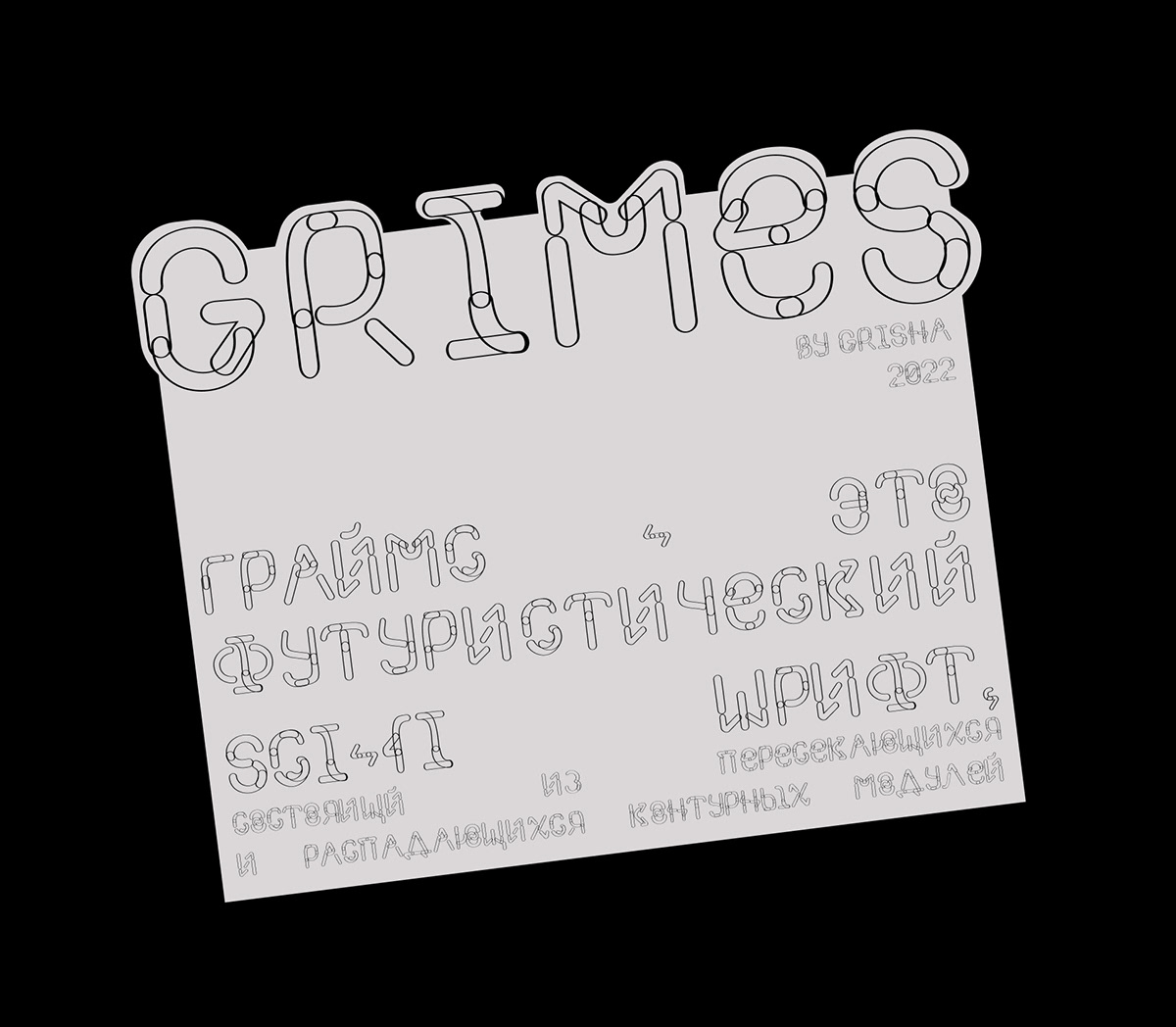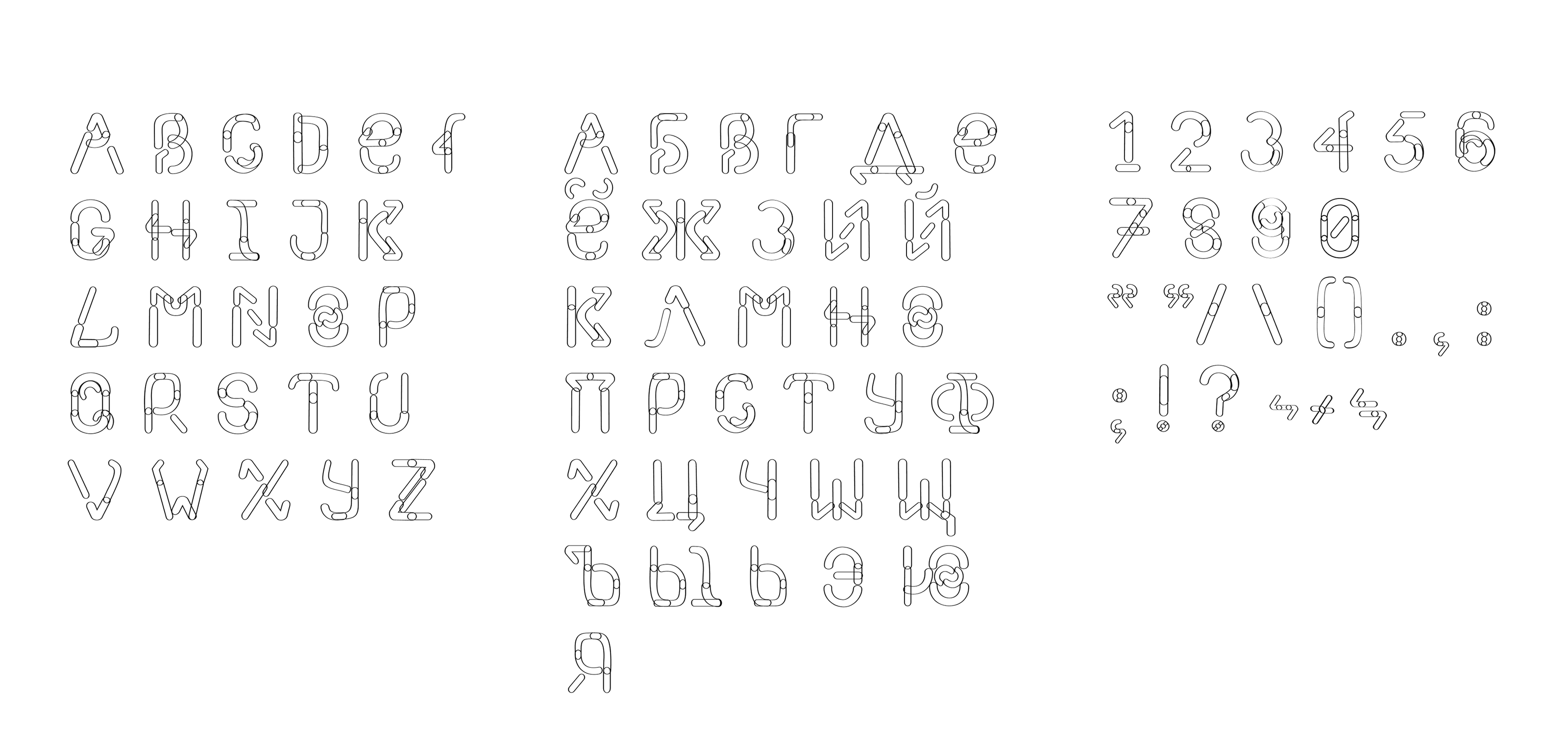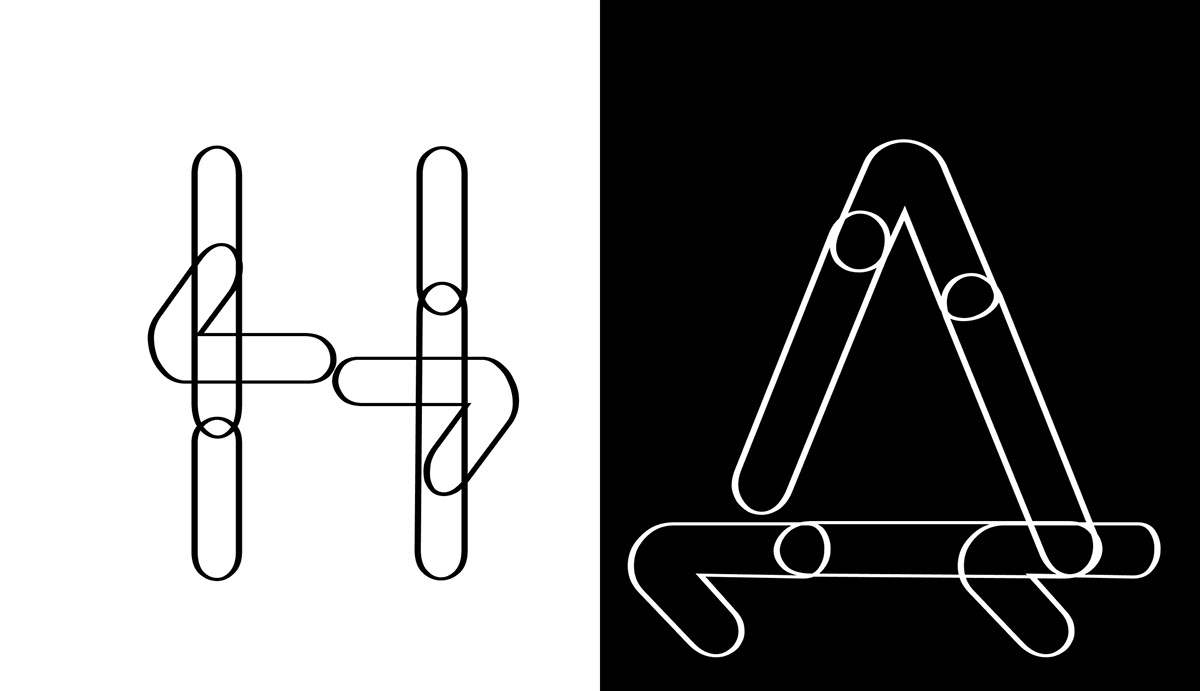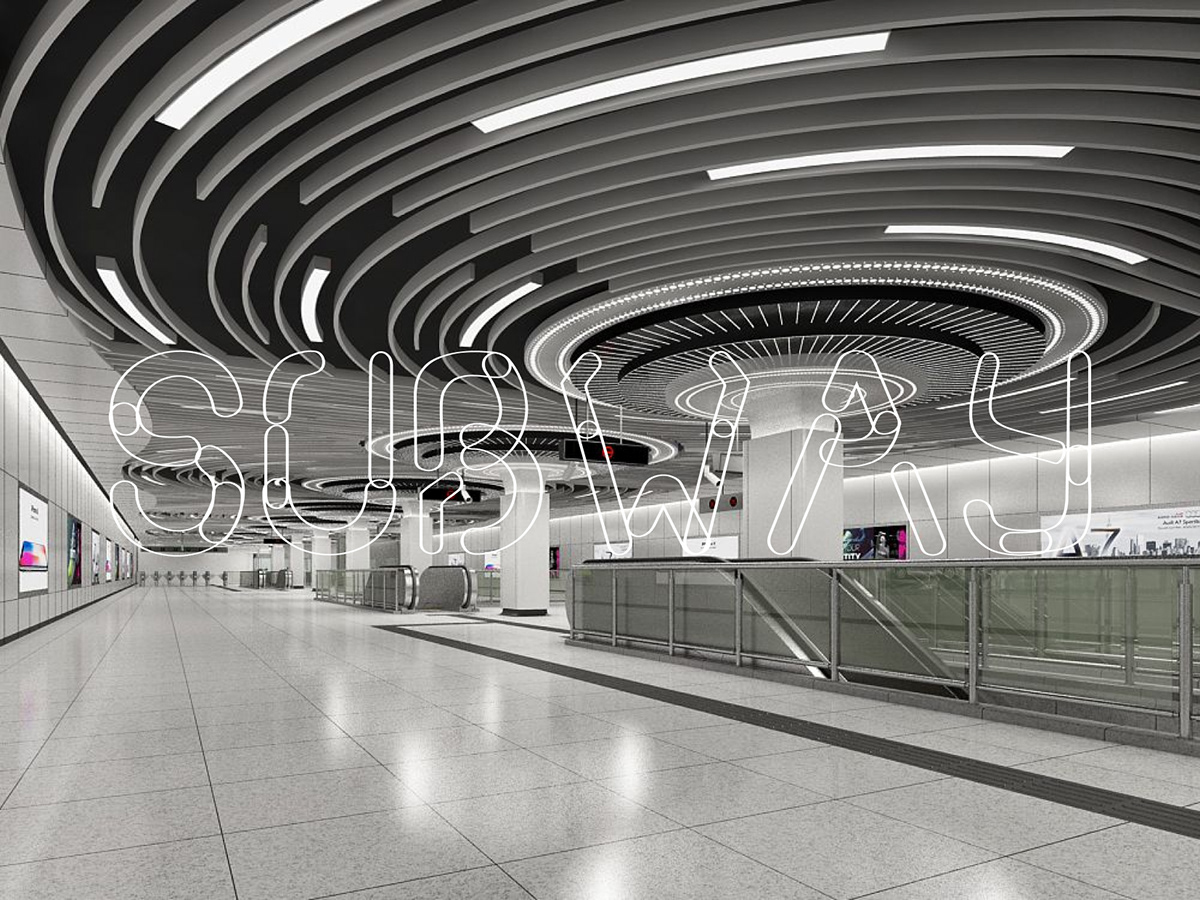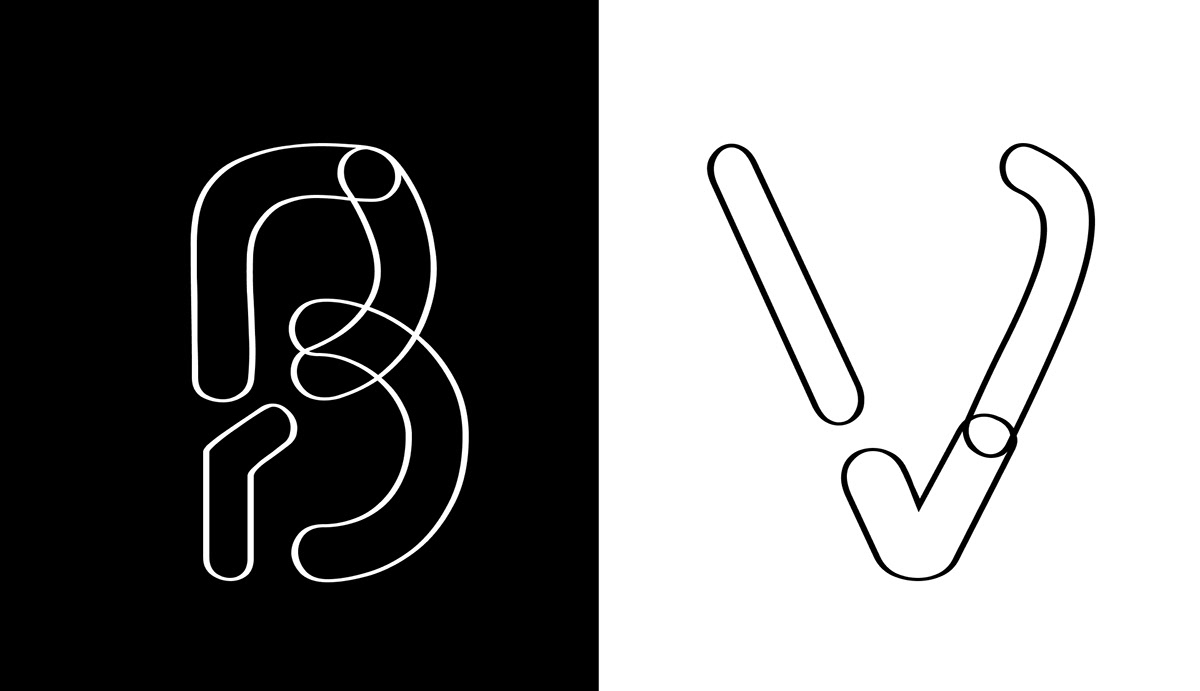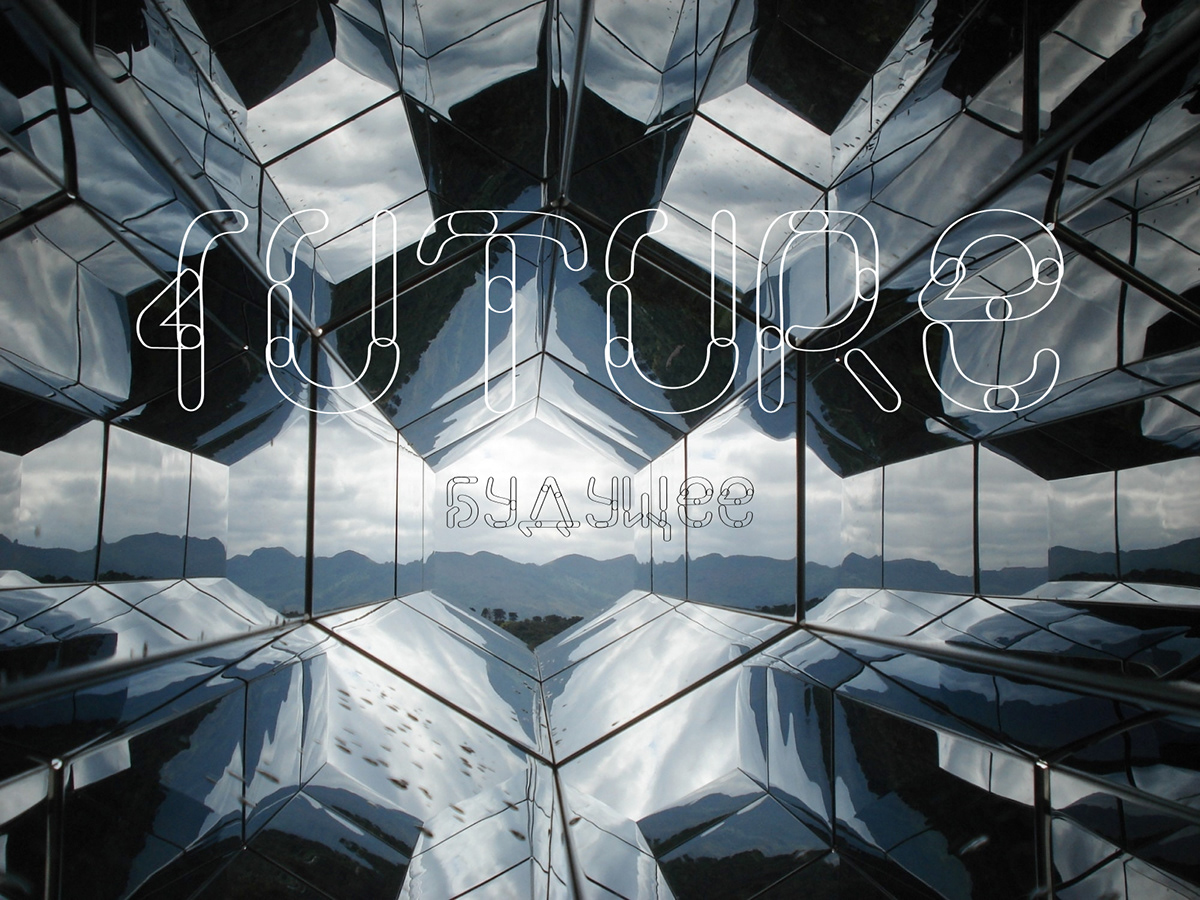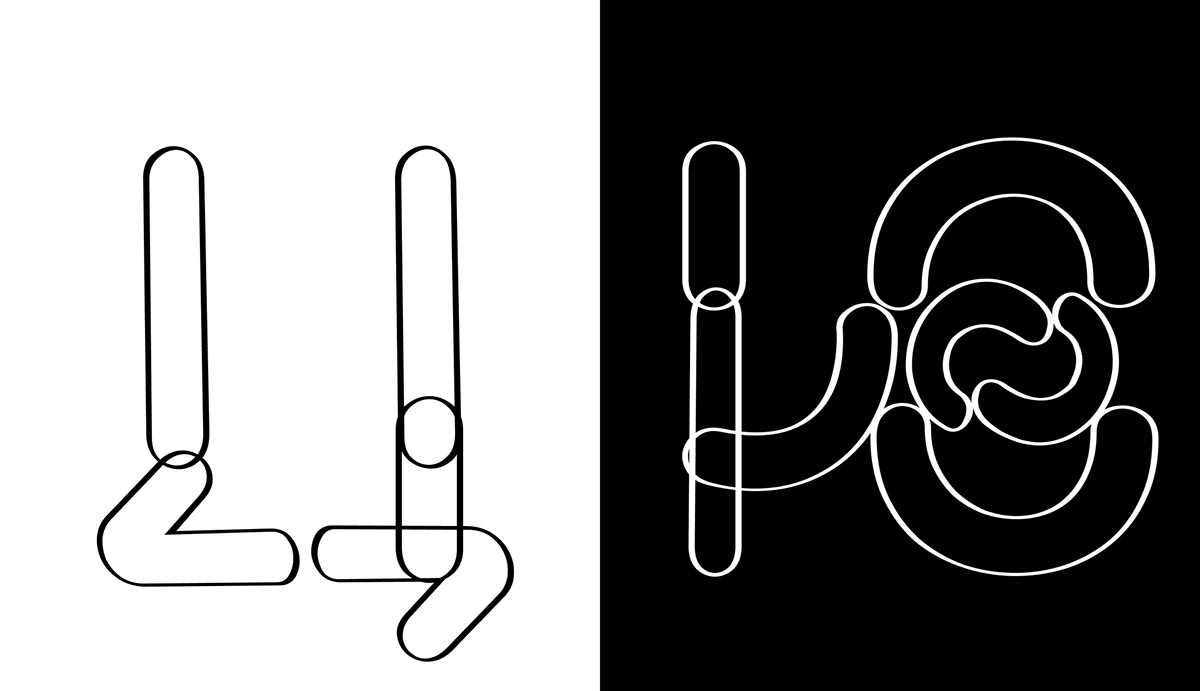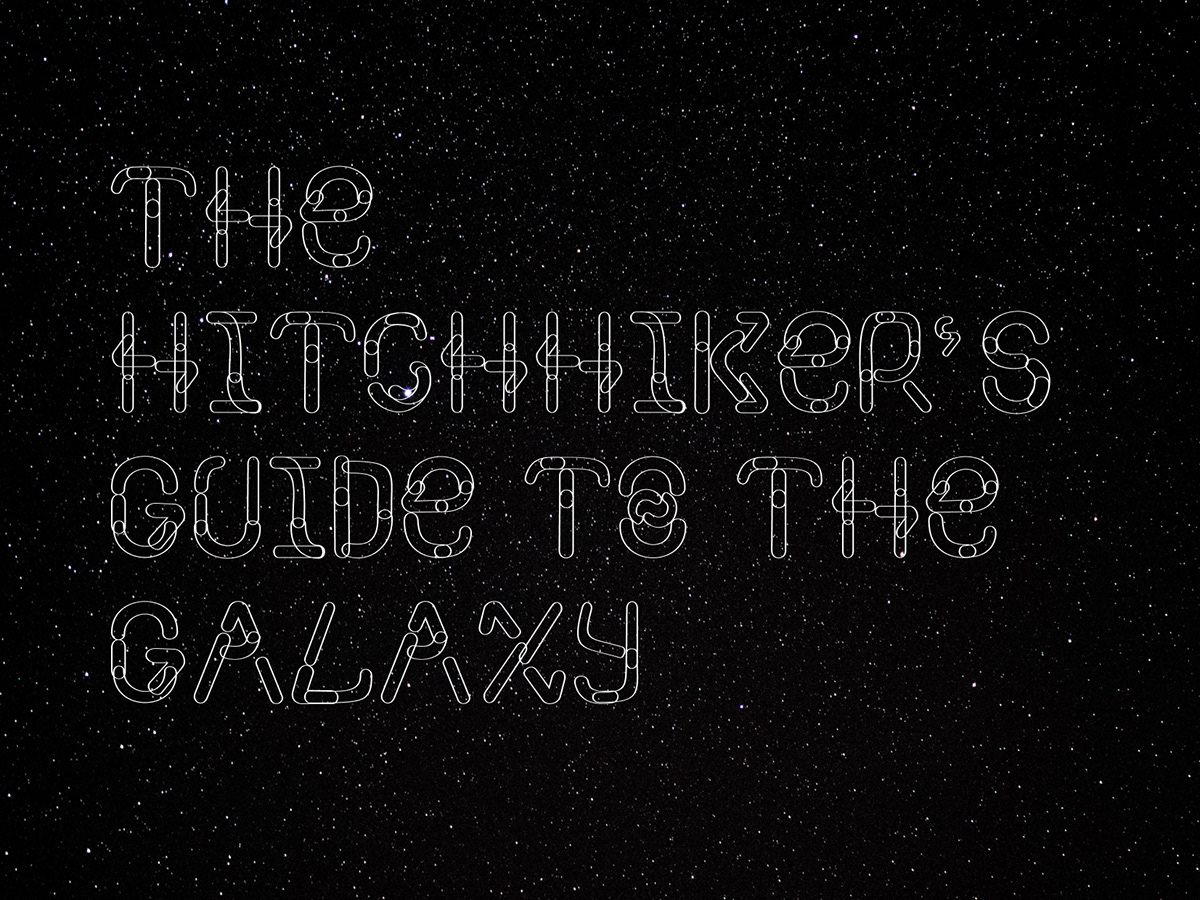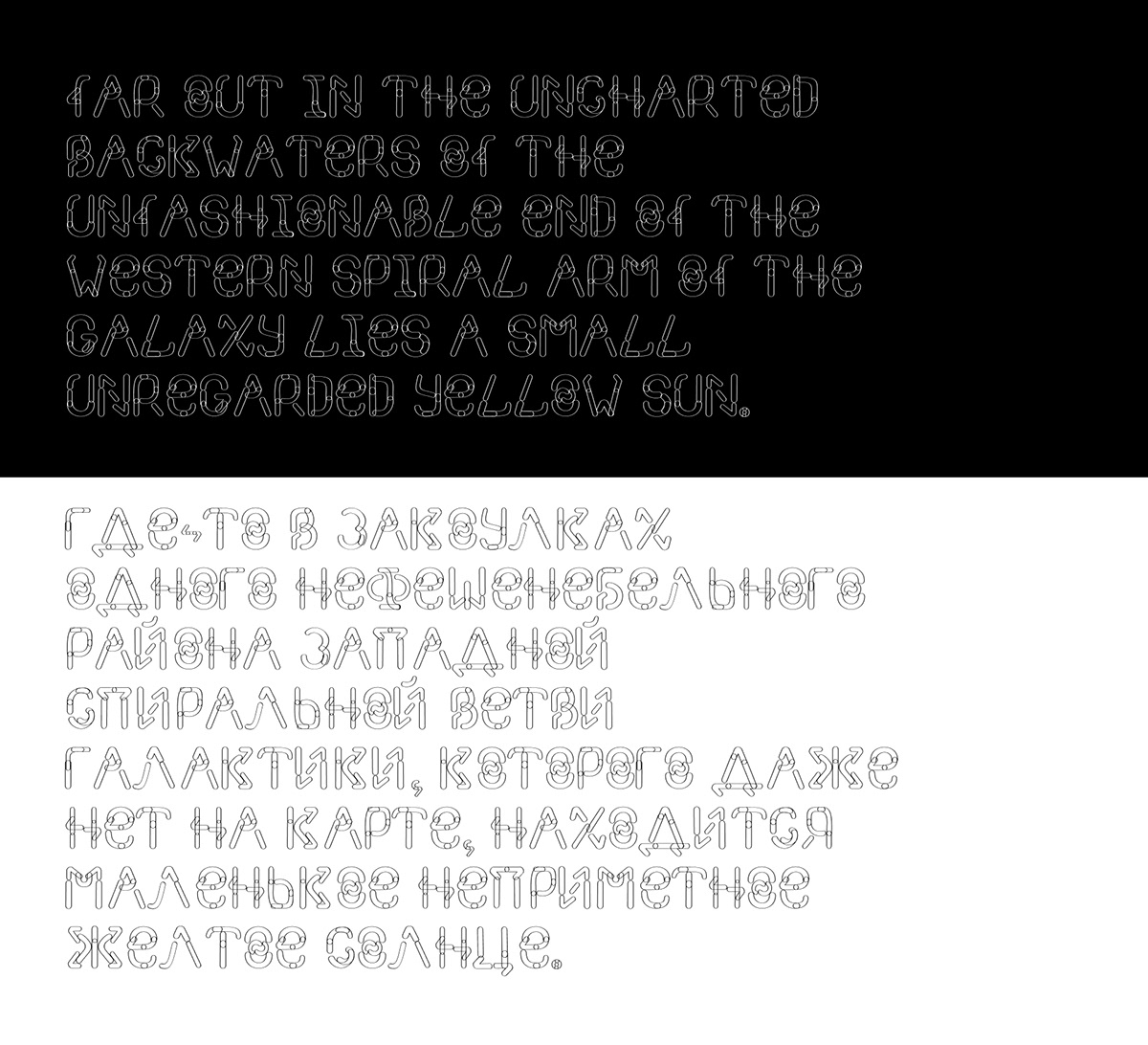
GRIMES is a futuristic sci-fi font made of crossing&decaying contour modules. This version of font contains renewed symbols and cyrillic alphabet.
GRIMES Typeface
Latin&Cyrillic